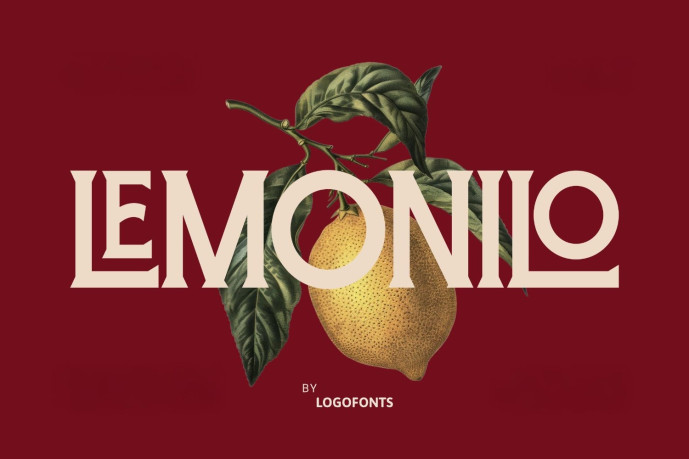
Lemonilo – Food Font
Lemonilo – Food Font combines classic elegance with modern freshness, perfect for coffee, restaurant, and bakery branding that wants a refined yet approachable tone. Its sophisticated serifs and balanced proportions make it ideal for menu headers, logo design, or kitchen product packaging that exudes confidence and taste.
With a flavor of natural charm and vintage quality, LEMONILO works beautifully for chocolate, pizza, and café brands that want to convey purity and craftsmanship. It’s a stylish font that turns every food or cooking identity into a timeless design masterpiece.
Designed for elegance, crafted for timeless branding.